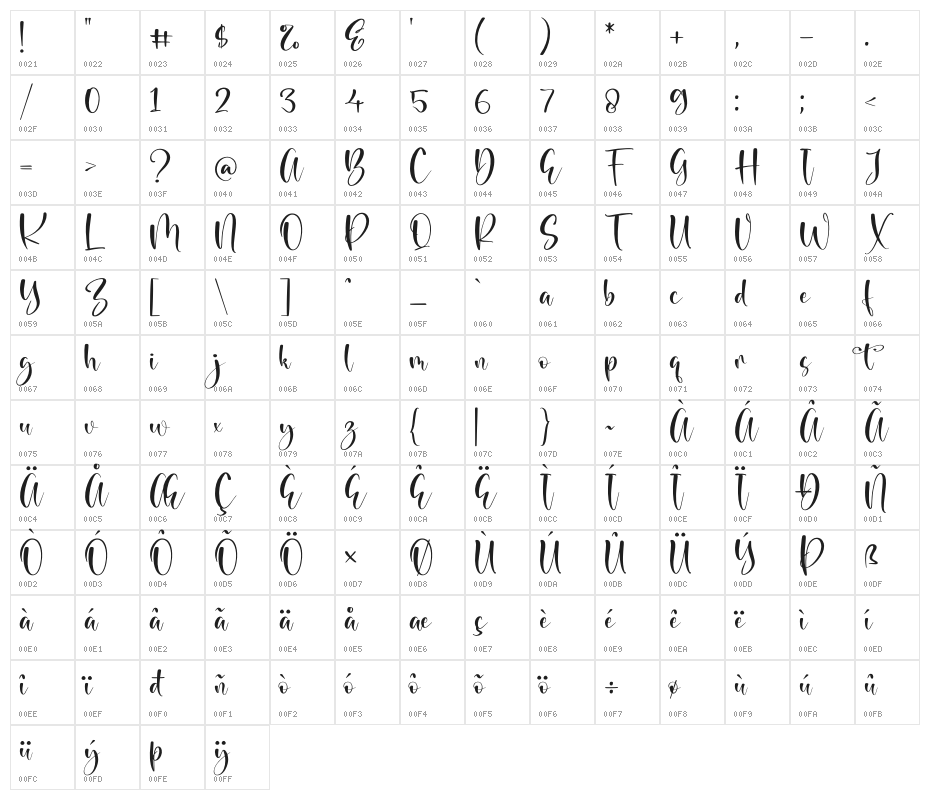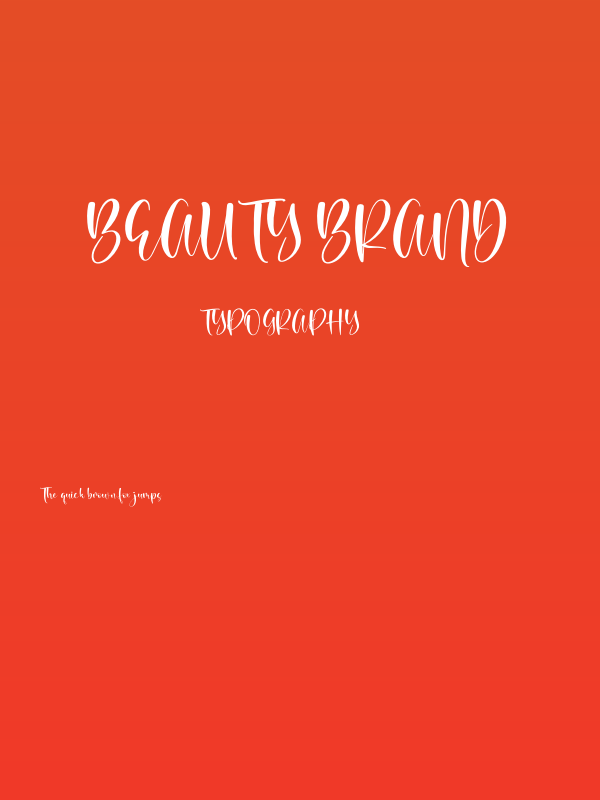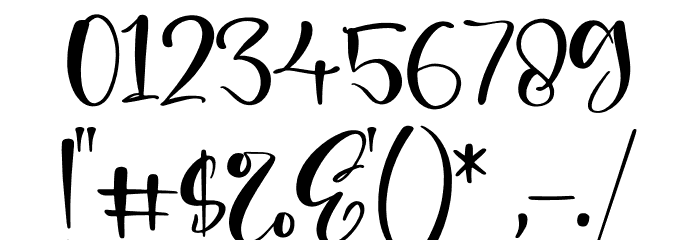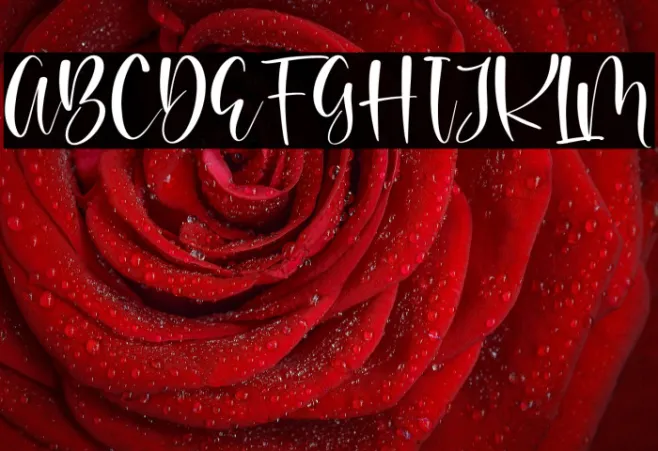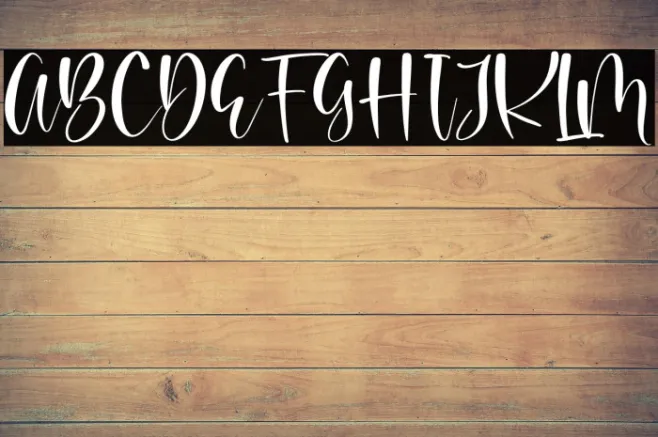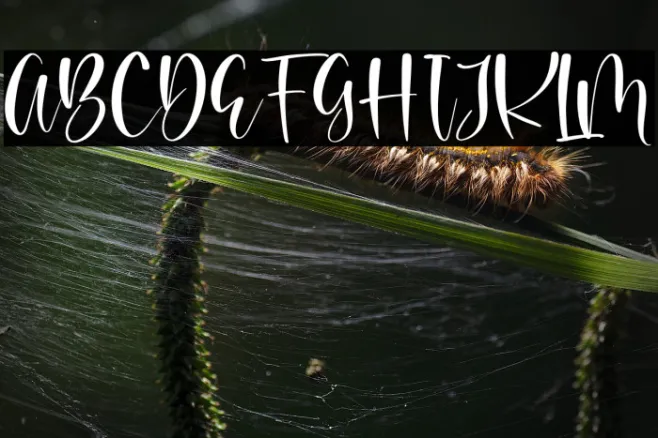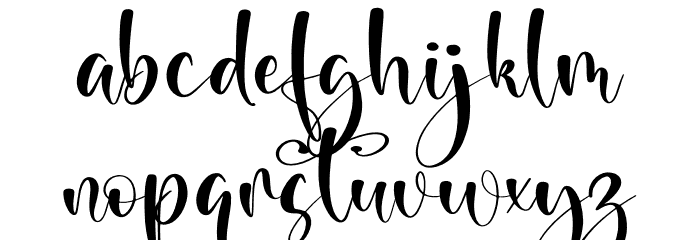
Beauty Brand Font
This font features an elegant and flowing script style, characterized by its smooth, cursive strokes and artistic flair. The uppercase letters are bold and expressive, with sweeping curves and loops that give a sense of movement and grace. The lowercase letters maintain a consistent style, with some characters featuring unique flourishes that add a touch of sophistication. The numbers are stylish and maintain the overall aesthetic, while the special characters are creatively integrated, enhancing the font's decorative appeal. This font is perfect for projects that require a touch of elegance and creativity.
| Proposed Projects | Ideal for wedding invitations, beauty brand logos, greeting cards, and elegant packaging designs. |